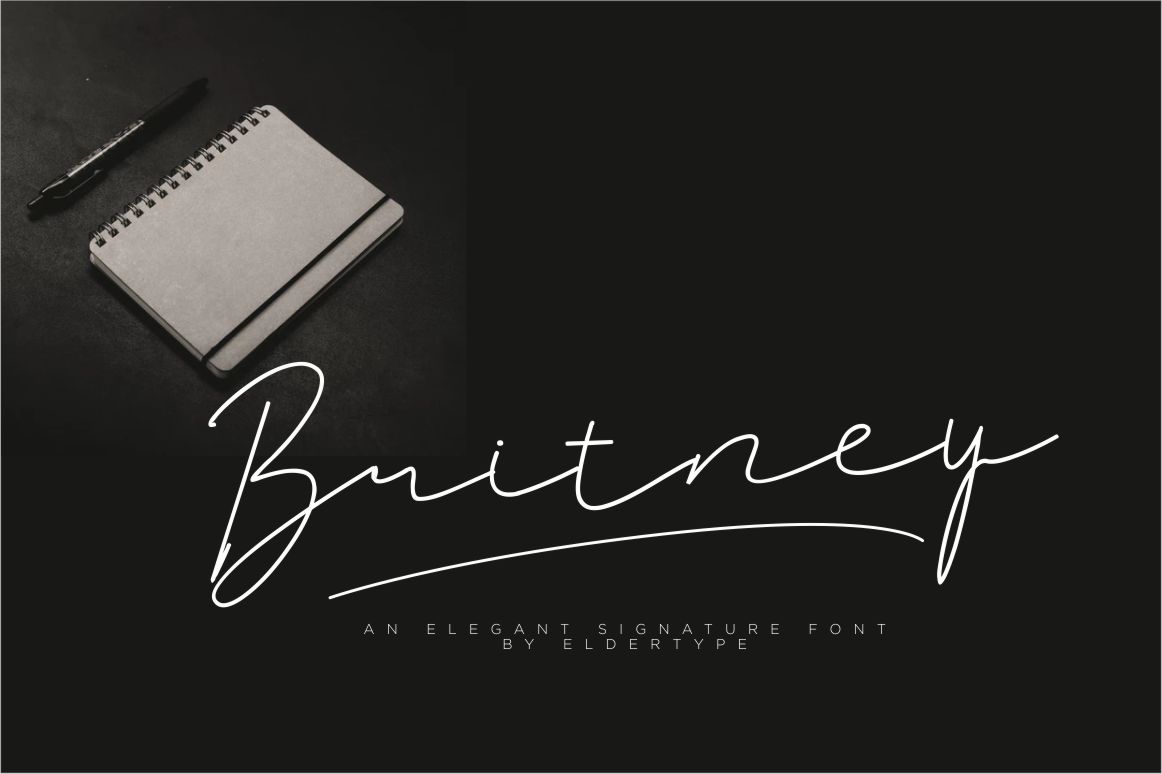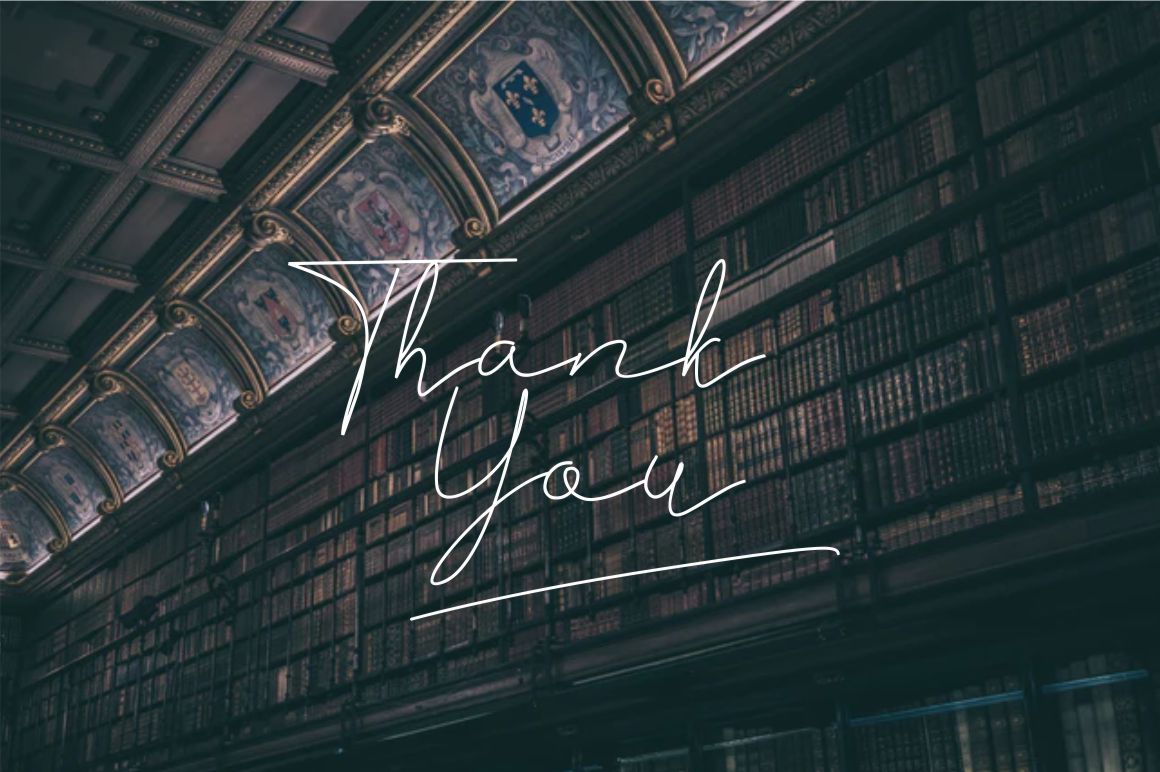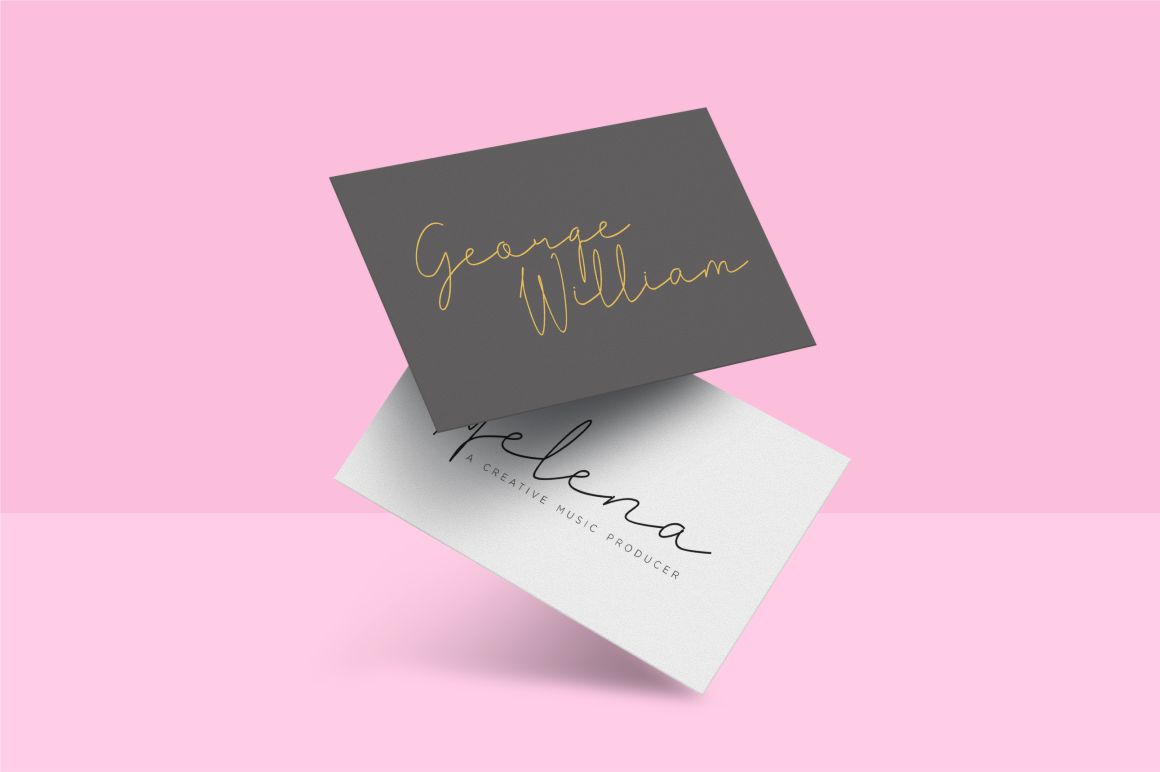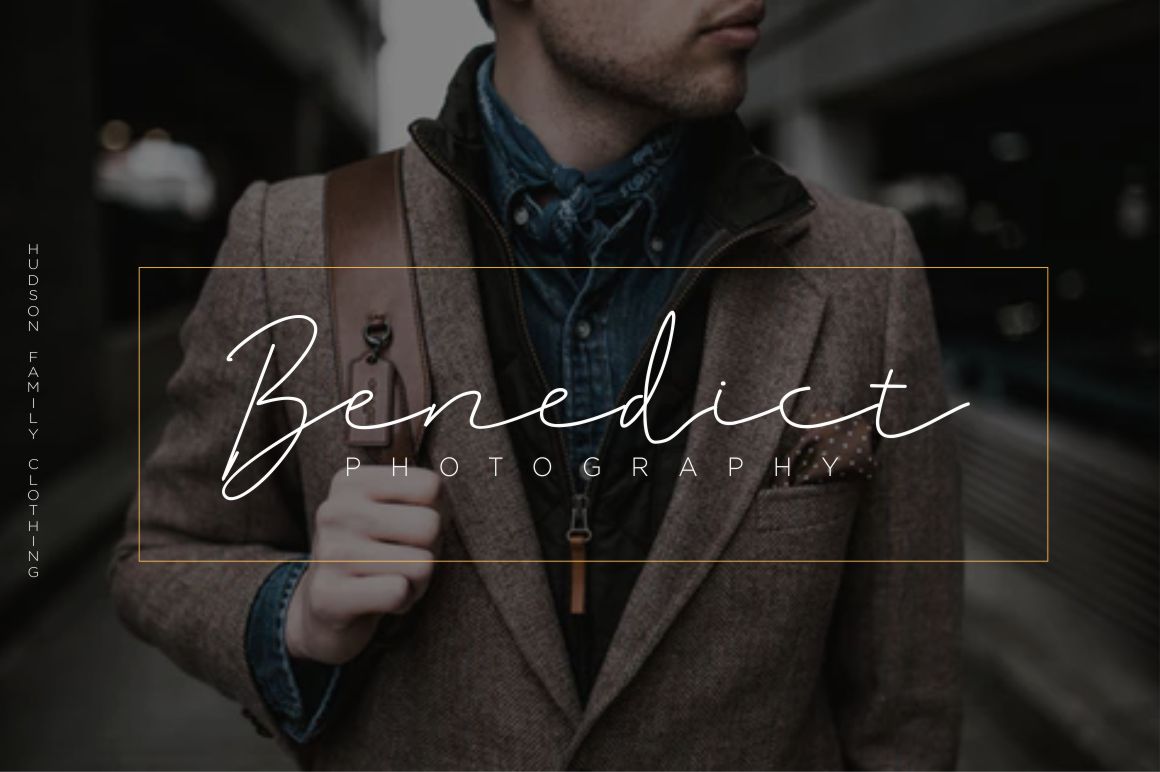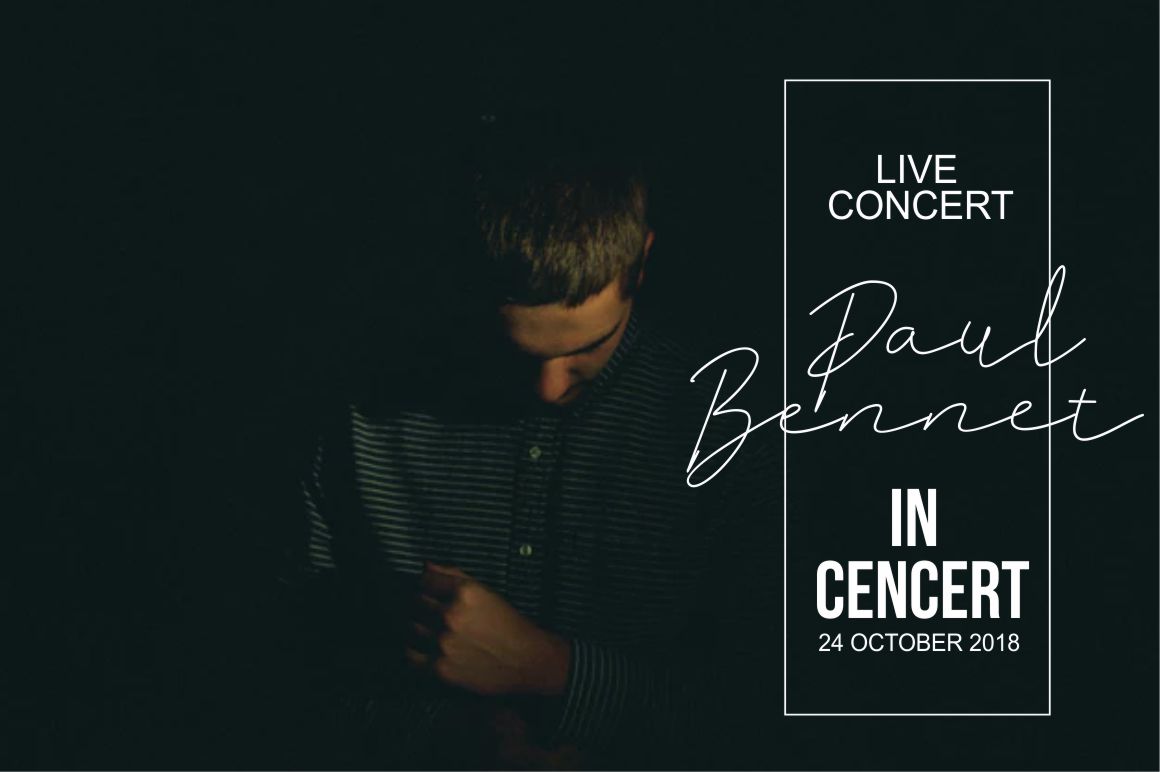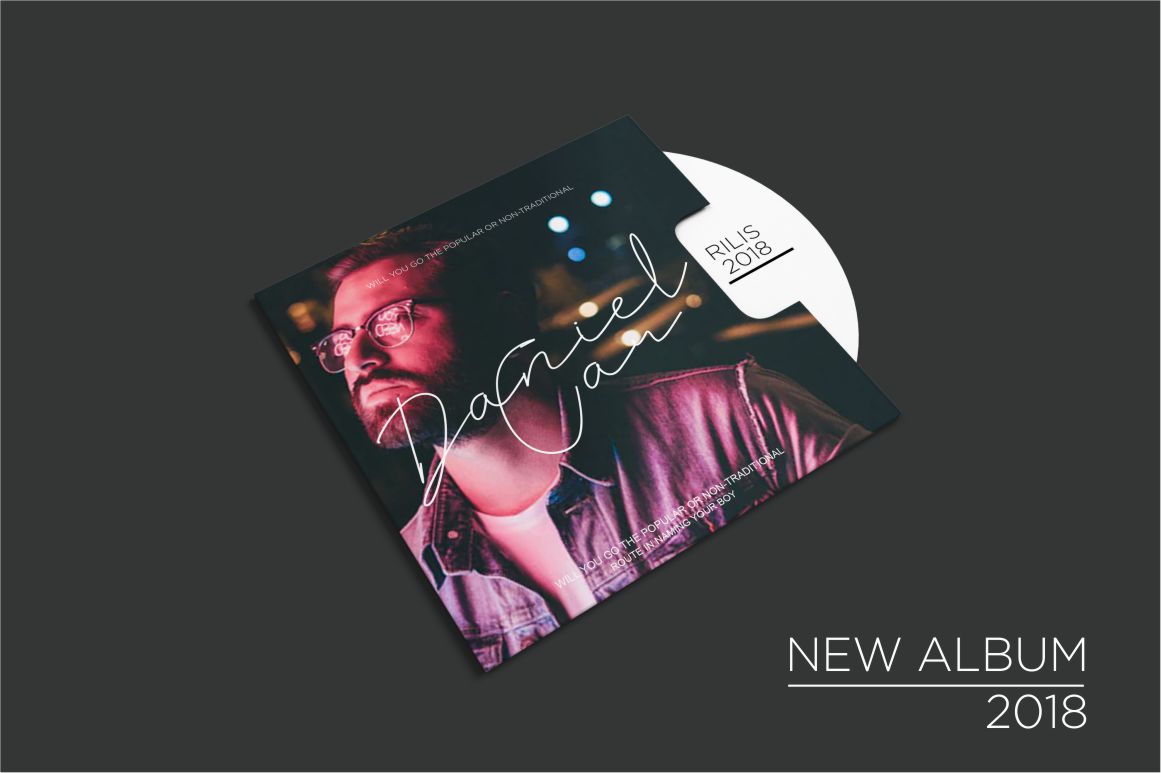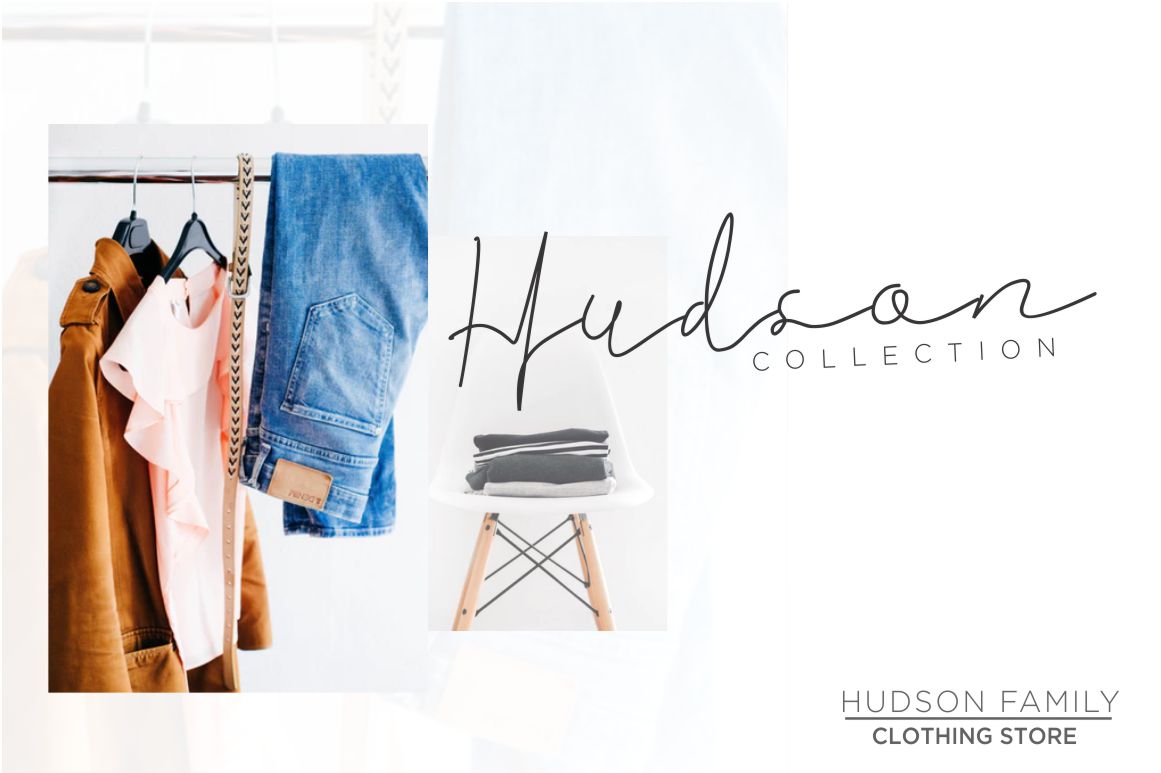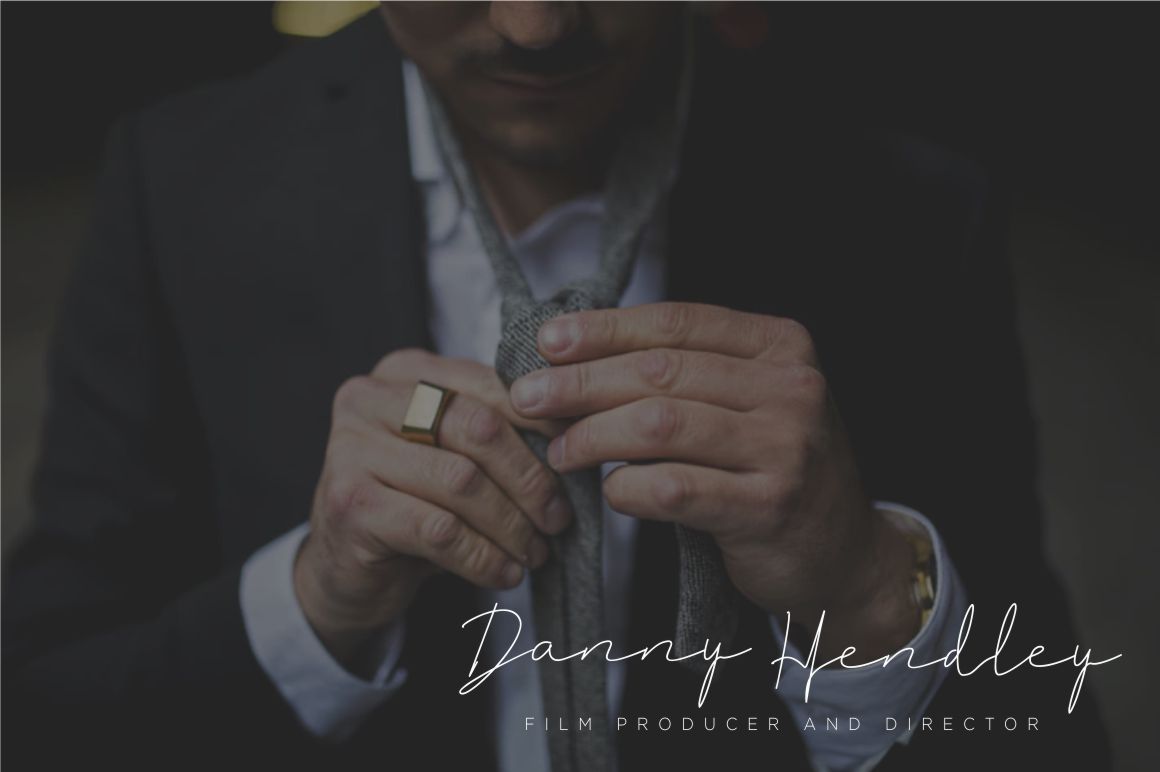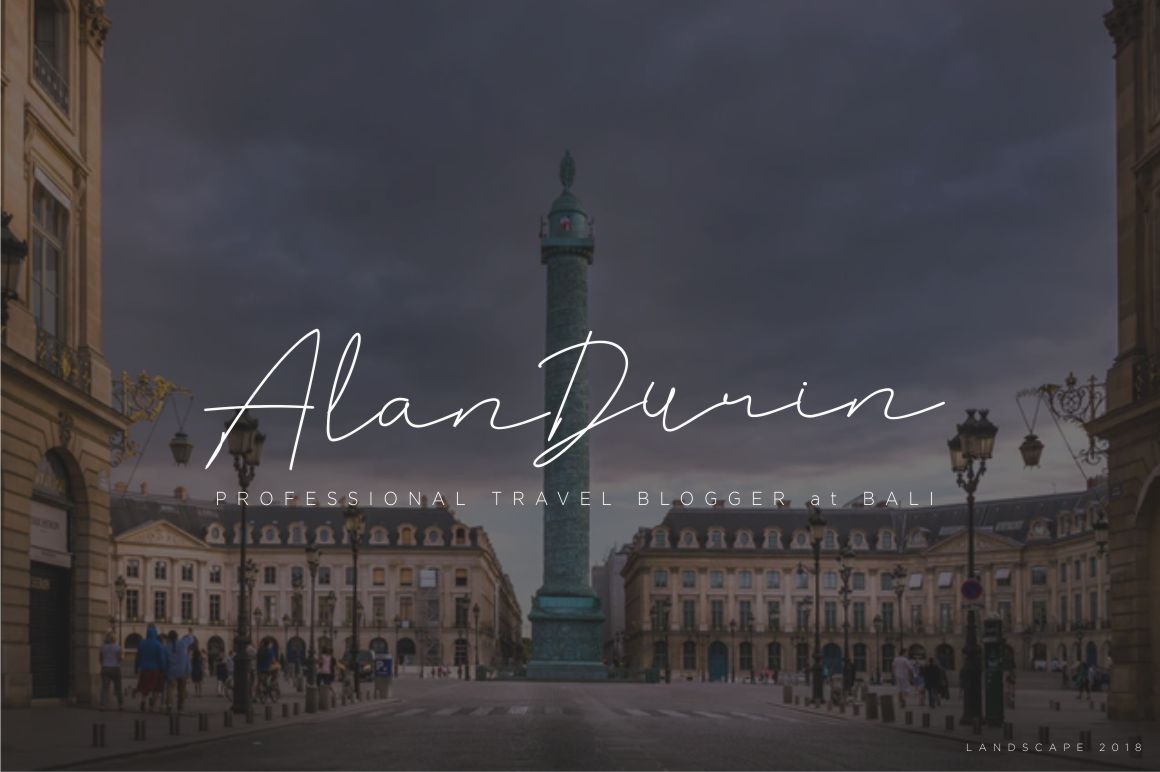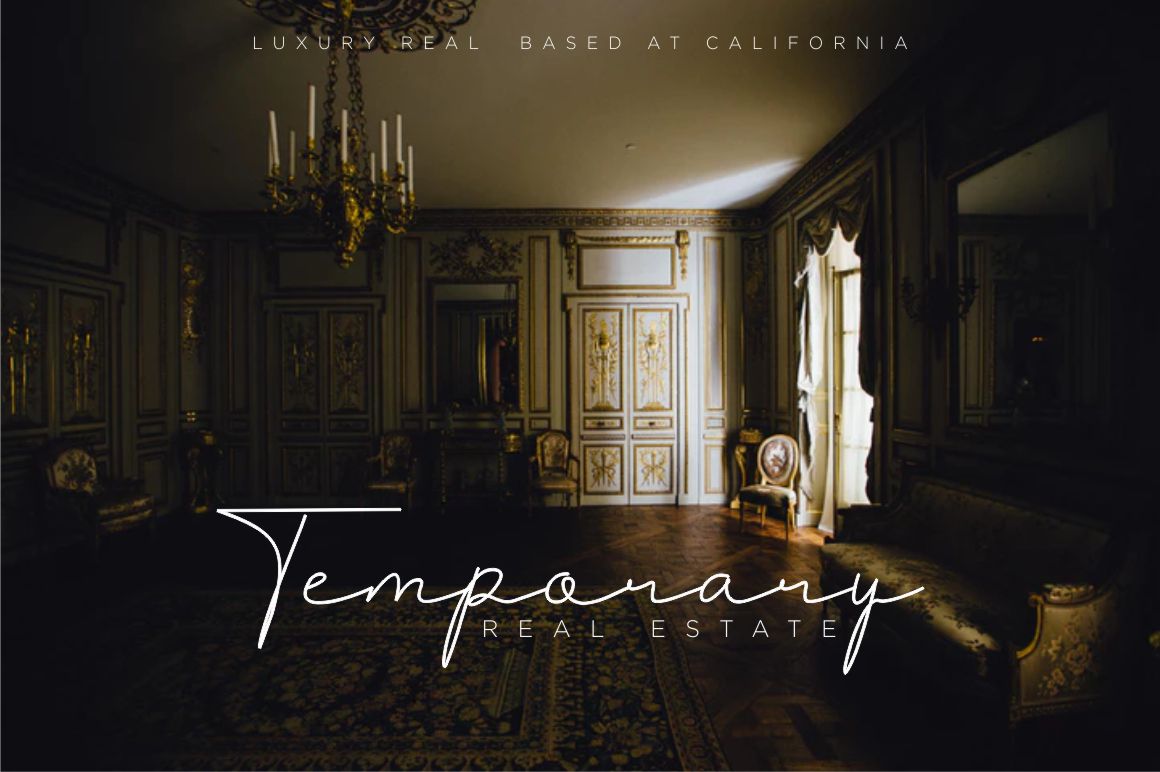
Britney Signature Font
About Britney Signature Font
Britney is a thin signature font that as a elegant, and professional style. Perfect for adding some romance and charm to your designs.
This script functions most strongly as a display or headline font. suitable for logos, logotype, branding, wedding designs, fashion, label, book cover, t-shirt, Instagram posts, and more!